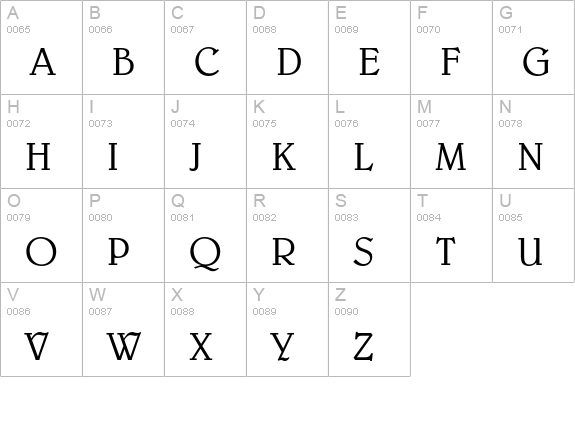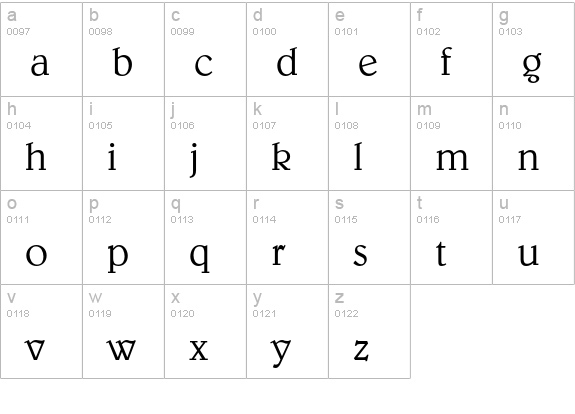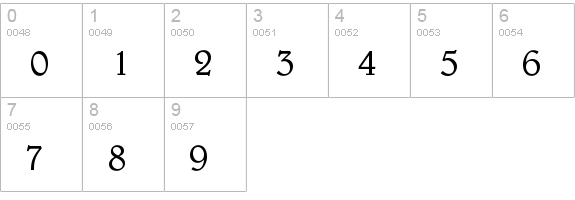
Belwe Light is a refined, elegant variant in the Belwe typeface family \xE2\x80\x94 well suited to elegant body text, refined sub-headings, and luxury branding.
Belwe Light is a sophisticated and elegant font that exudes a sense of refined beauty and modern charm. Its delicate strokes and graceful curves make it ideal for a variety of design projects, from invitations to branding and beyond. The light weight of the font adds a touch of subtlety and finesse to any text, making it perfect for conveying a sense of sophistication and style. The best part about Belwe Light font is that it is completely free to download at FontsMarket.com. This means that you can easily access this stunning font and use it in your projects without any cost. Whether you are a professional designer looking for a versatile and stylish font or a hobbyist wanting to add a touch of elegance to your creations, Belwe Light is the perfect choice. Download it today and elevate your designs with this exquisite typeface.